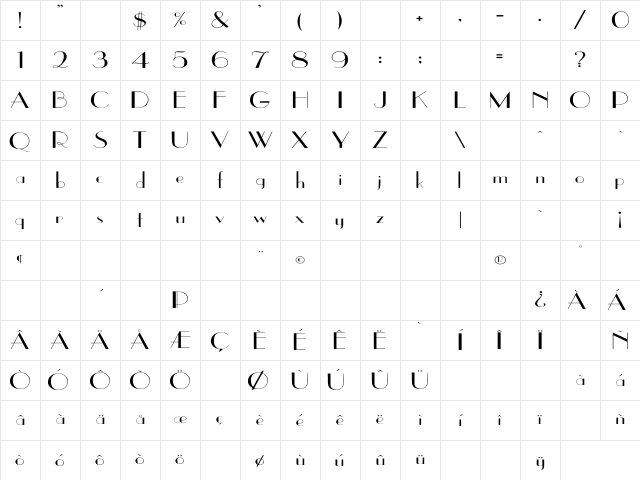
UppEa Wd Regular
Design Context for UppEa Wd
UppEa Wd is a composed and adaptable typeface that performs quietly and consistently across a wide range of design contexts.